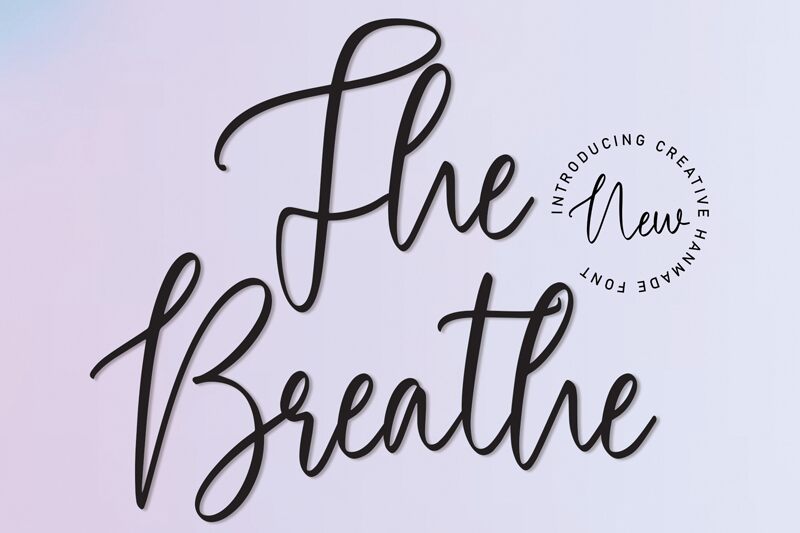
The Breathe
The Breathe font by Scratchones is a light handwritten typeface that embodies elegance with its flowing smooth curves and expressive loops. This casual font flaunts an artistic flair suitable for creative designs looking to make a lasting impression. Despite its dynamic appearance, this free font is easily legible even at smaller sizes.
Use The Breathe in fashion magazine covers, advertising headers, typographic artwork, social media posts and more. Get creative with poster blurbs, album covers and restaurant menus or customize stationery items like invitations and business cards. Websites with short article texts or interesting landing page titles will also benefit from this font’s contemporary look when using it in their design.